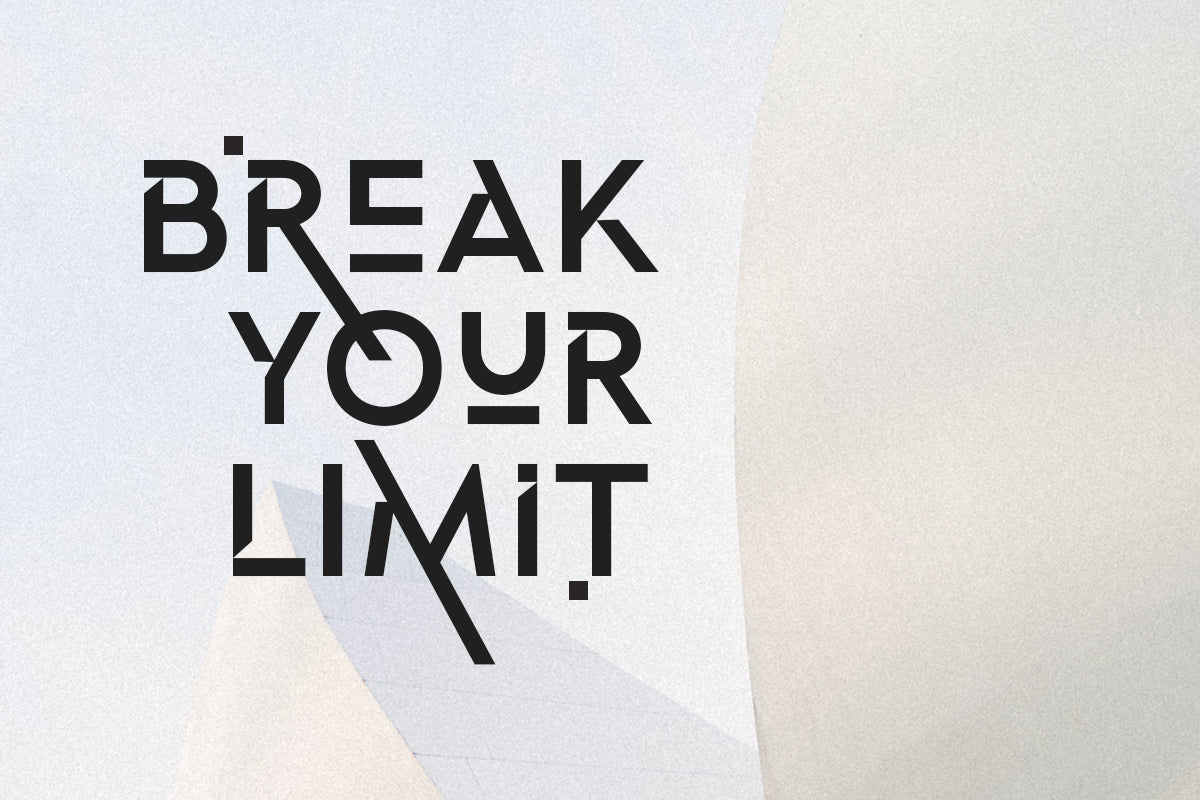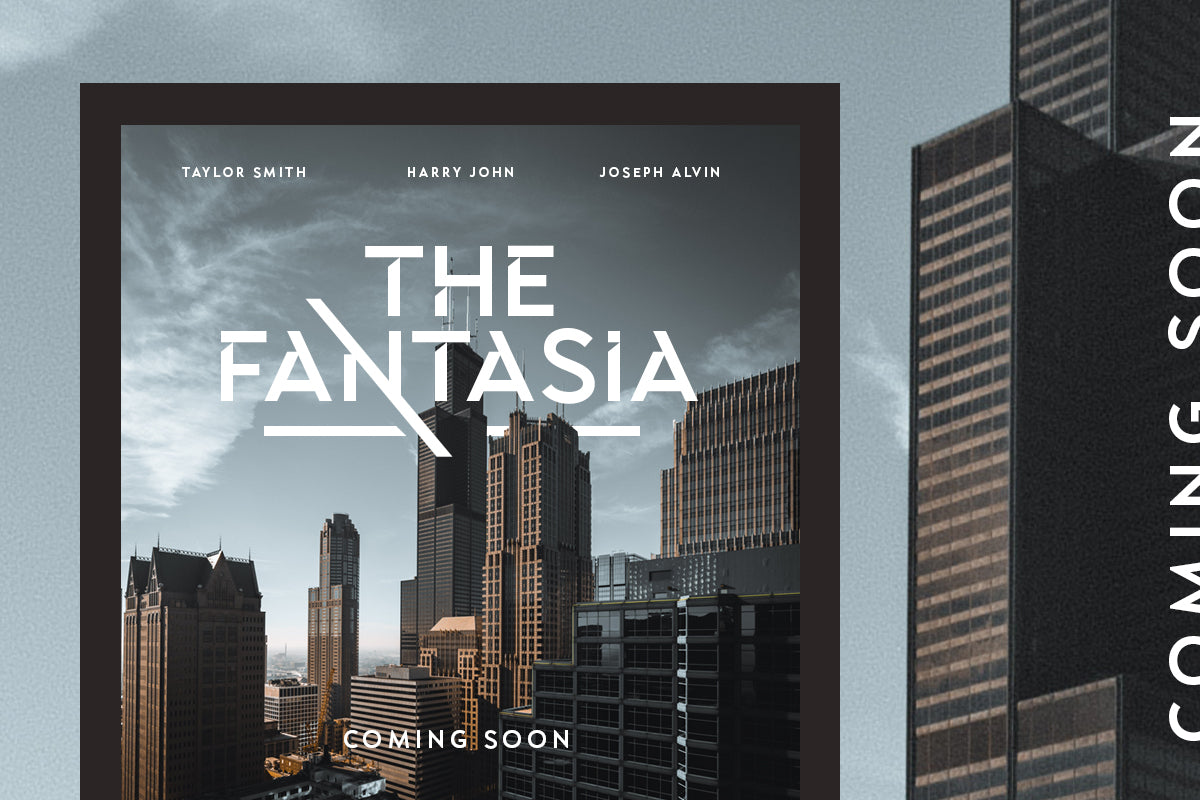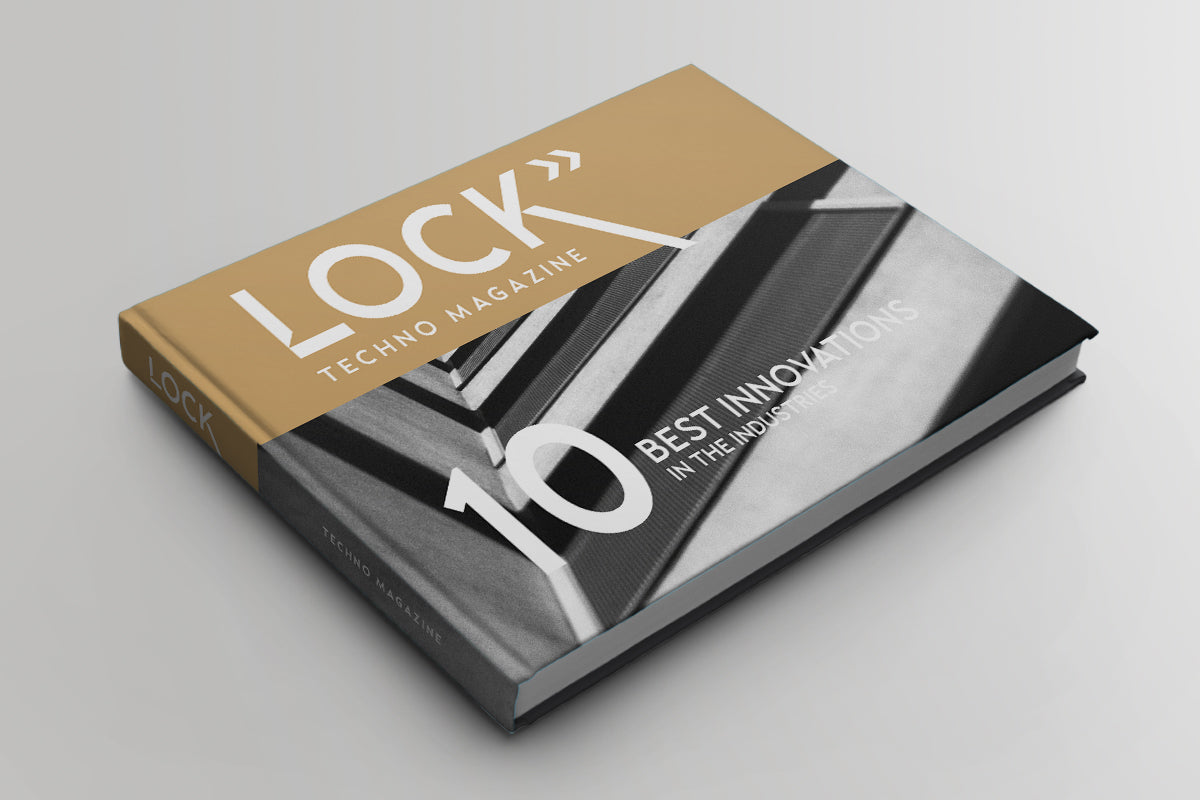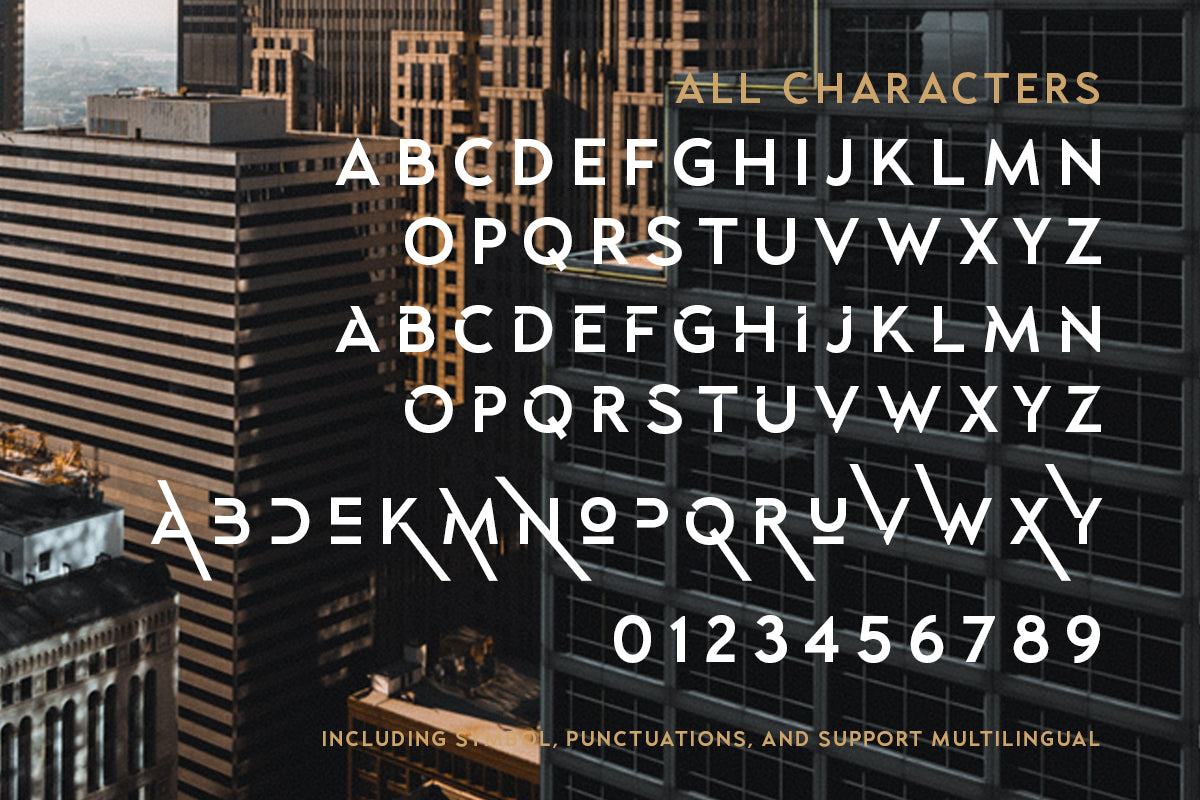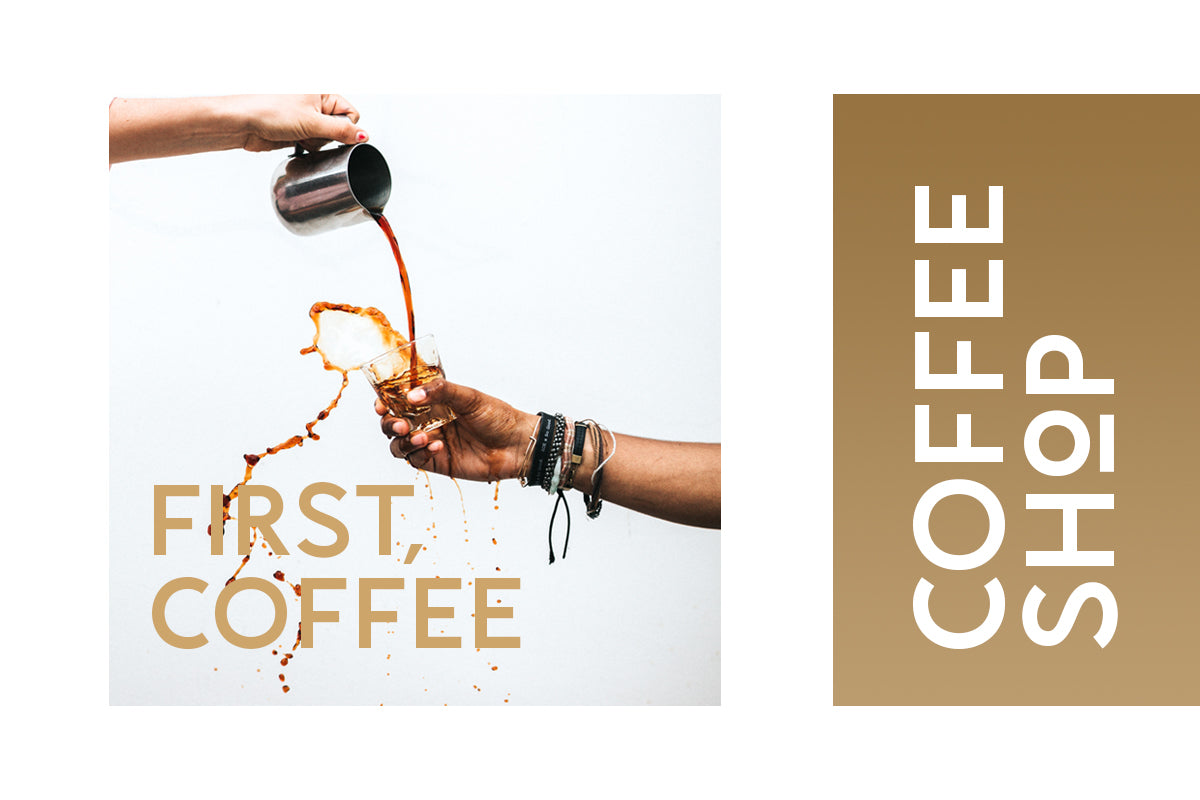
Blackpast - Futuristic Logo Font
Blackpast is a sans serif font featuring a unique lowercase design that offers a modern and futuristic aesthetic. It includes special alternates and allows for mixing uppercase and lowercase letters, making it suitable for creating distinctive logotypes.